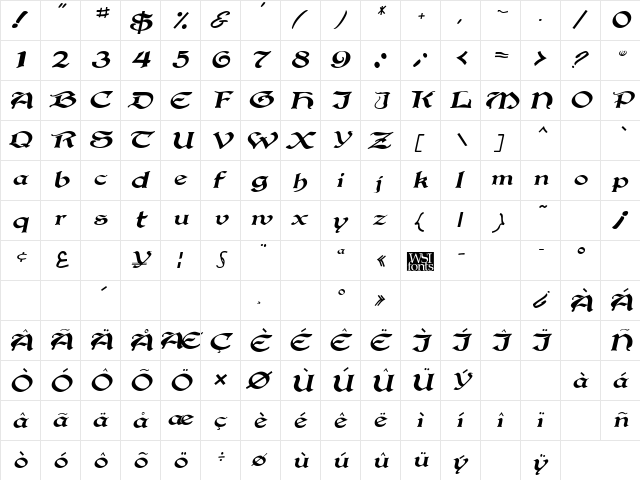
Gregorian Italic
Design Context for Gregorian Typeface
Gregorian is a composed and adaptable typeface that performs quietly and consistently across a wide range of design contexts. The dynamic lean of this cut emphasises speed and emphasis in any layout.
Pro Tip: Try Gregorian for annotation and caption copy alongside an upright companion — the contrast in angle creates a dynamic but ordered typographic system.